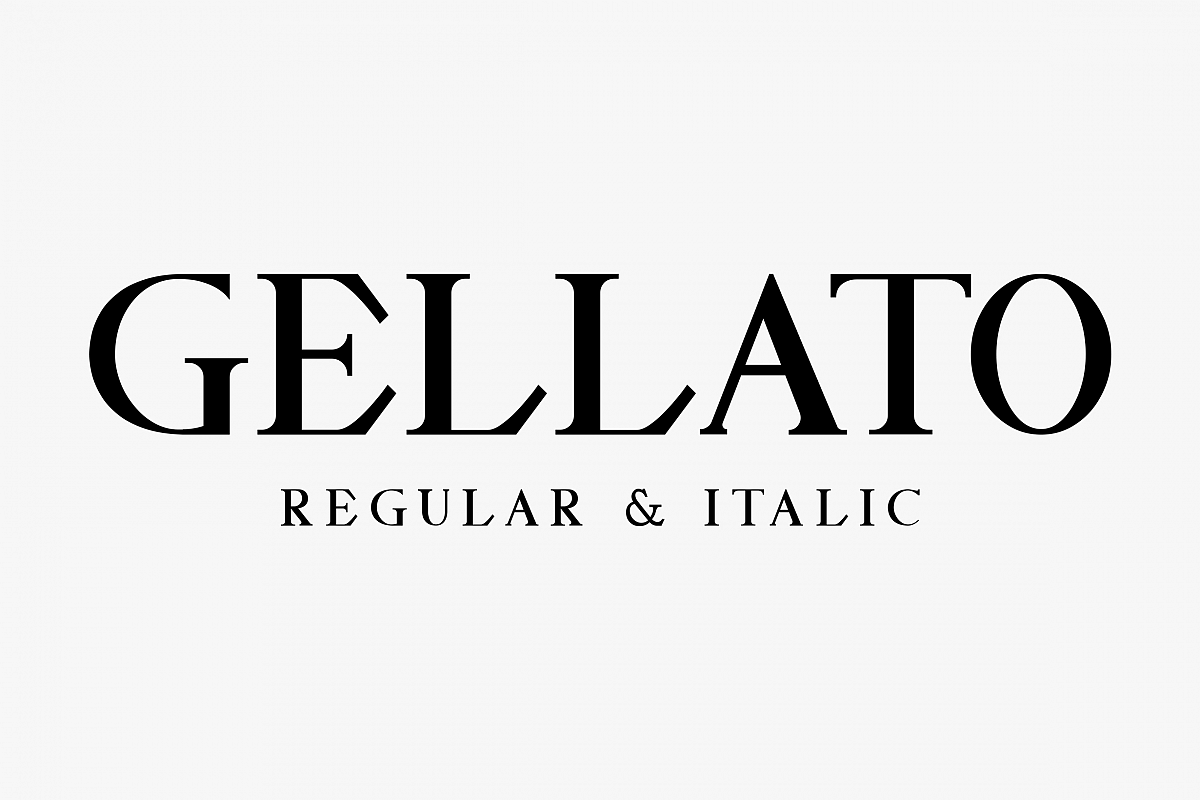
GELLATO // Modern Serif
Introducing our newest product GELLATO.
GELLATO is a modern Serif font.
GELLATO is perfect for all your design projects.
Logo design, clothing design, posters, magazines, quotes, and more.